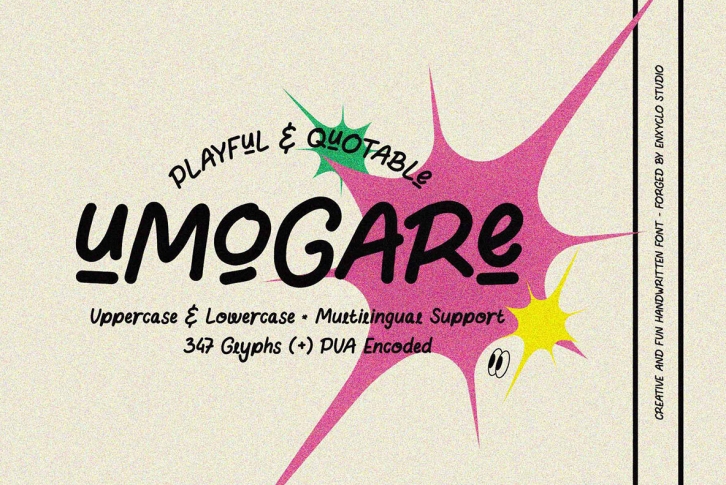
Umogare is creative, playful and fun handwritten font created special for your quote display design, which puts a bold on your projects and will inspire you to create something unique or playful design. Also, this font will help you to create special and touching typographical designs for your display quote projects and it is perfect for headings, flyers, greeting cards, product packaging, book cover, printed quotes, logotype, apparel design, album covers, and that is guaranteed to add an eye-catching suitable for your logo designs, brand imagery, product packaging, merchandise & social media posts.
• Contains 347 Glyphs
• Uppercase, Lowercase, Alternate & Ligature
• Numeral, Punctuation & Symbol